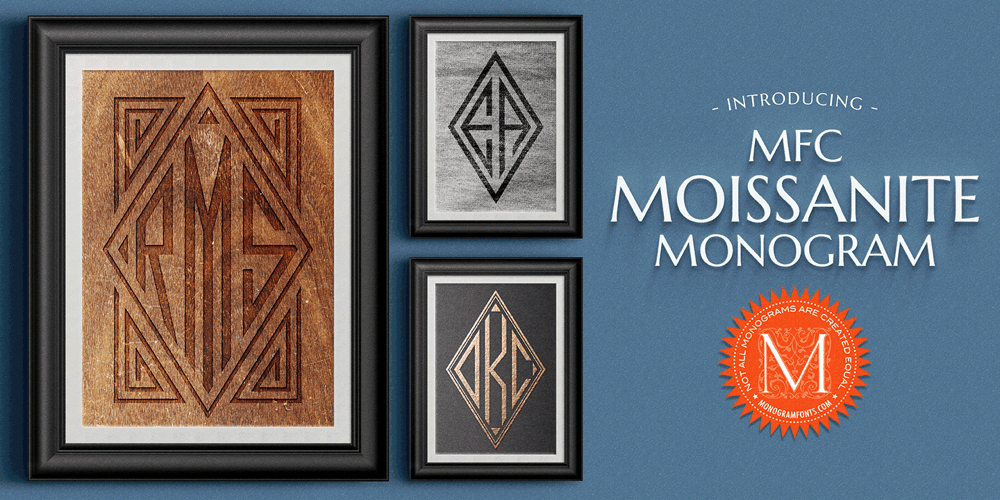
MFC Moissanite Monogram Font Family was designed by Brian J. Bonislawsky and published by Monogram Fonts Co.. MFC Moissanite Monogram contains 16 styles and family package options. The inspiration source for Moissanite Monogram is the 1934 Book of American Types by American Type Founders. Found in that specimen book, in a section titled “Diamond Combination Monograms”, this popular diamond pattern of Moissanite Monogram was featured in Alfred Hitchcock’s film, North by Northwest. A classic diamond form, this monogram style is now digitally recreated and revived for modern use in Moissanite Monogram, complete with two and three letter monograms, and a selection of frames to add a final classy touch! Moissanite Monogram is capable of traditional two and three letter format monograms, as well as numerous framing options. Download and view the Moissanite Monogram Guidebook if you would like to learn a little more. There is a guidebook for both the Pro and Standard fonts included in the font package. Moissanite Monogram comes complete with both Pro and Standard format fonts. For those with programs that can take advantage of OpenType features, the Pro fonts are for you, but for others without the ability to use OpenType features, we’ve created separate fonts that make up the traditional styles contained in the Pro font.